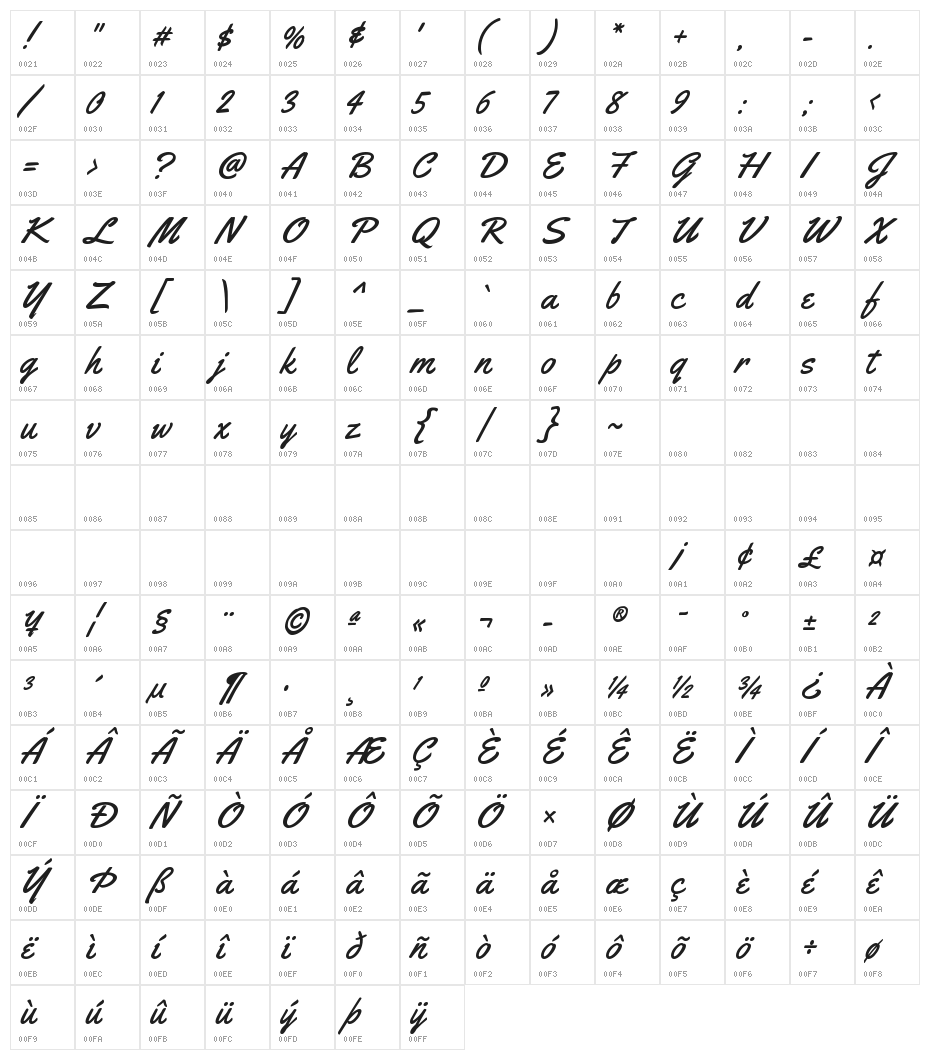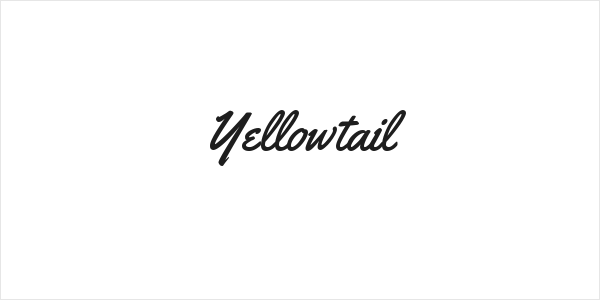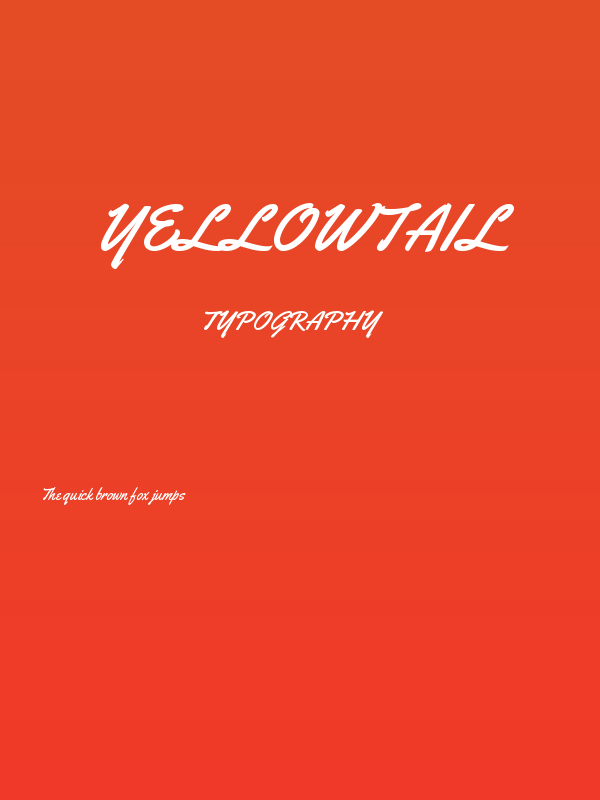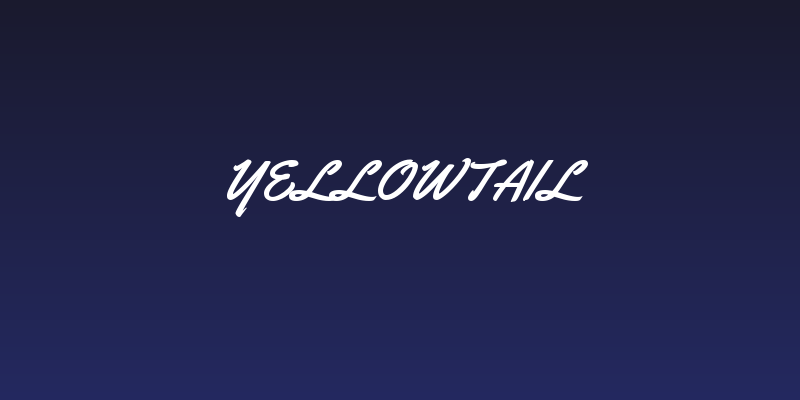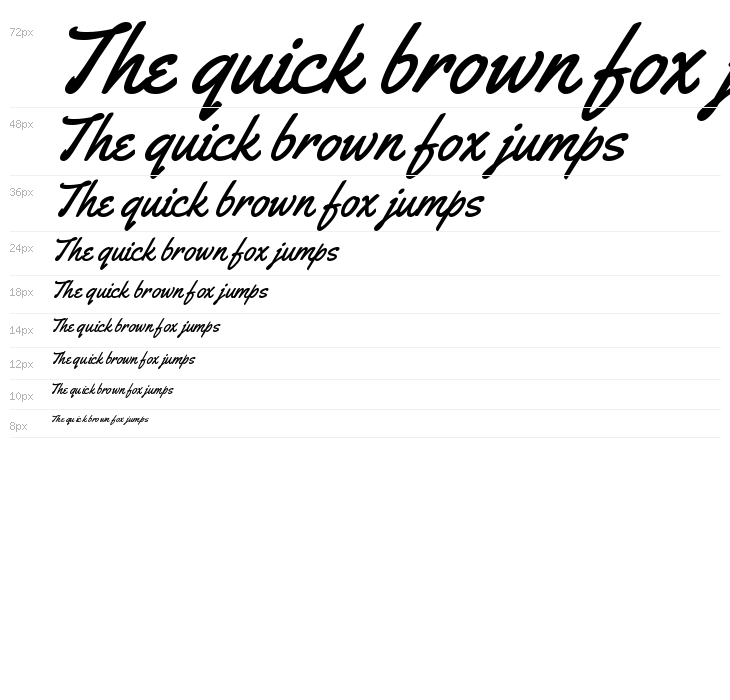
Yellowtail Font
Yellowtail Description
This font exudes a lively and dynamic script style, characterized by its flowing, cursive letterforms that mimic the fluidity of handwriting. The strokes are smooth and connected, creating a sense of movement and elegance. The uppercase letters are bold and slightly slanted, while the lowercase letters maintain a consistent rhythm and balance. The numerals and special characters are crafted with the same attention to detail, ensuring a cohesive look across all elements. This font is perfect for adding a personal touch to any design, with its playful yet sophisticated appearance.
| Use Case | Logos, Headlines, Invitations |
| Proposed Projects | Ideal for branding, invitations, greeting cards, and social media graphics. |